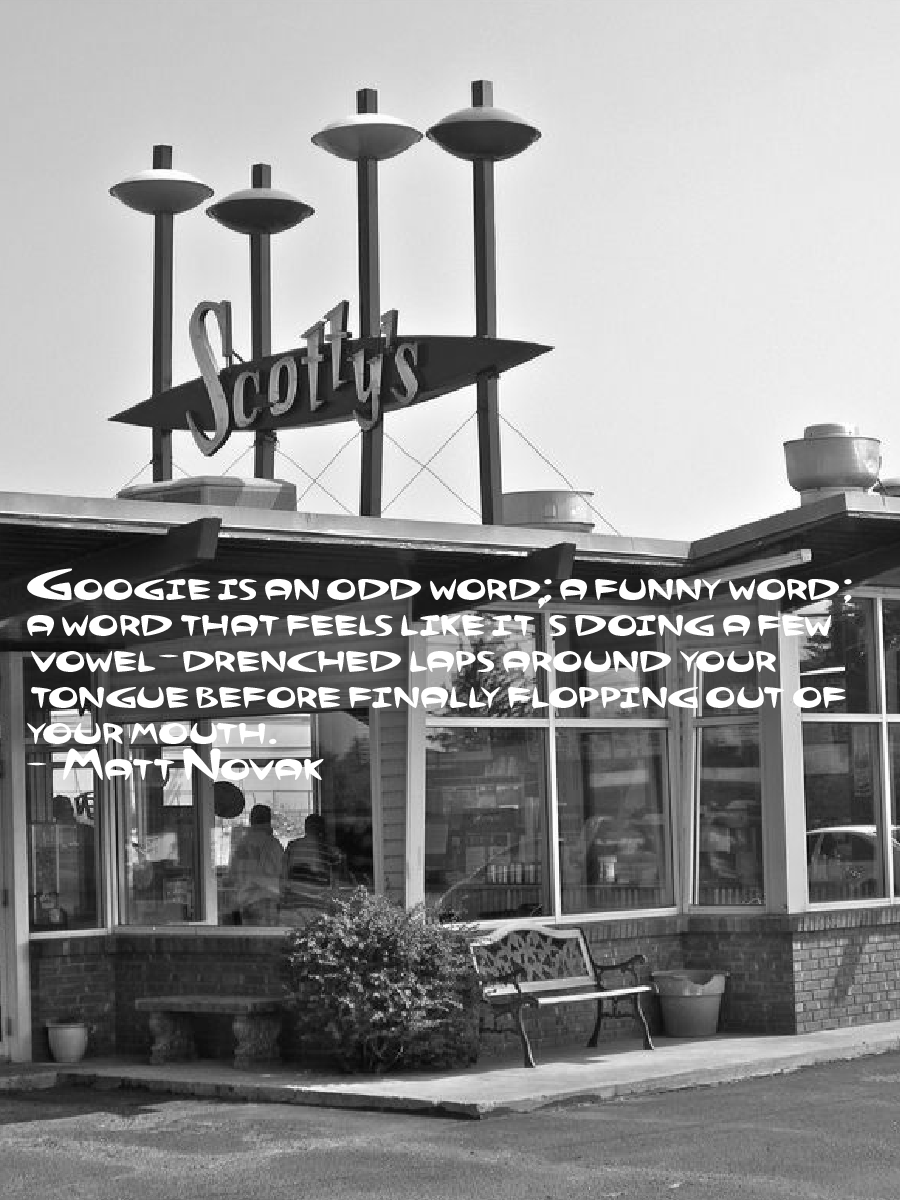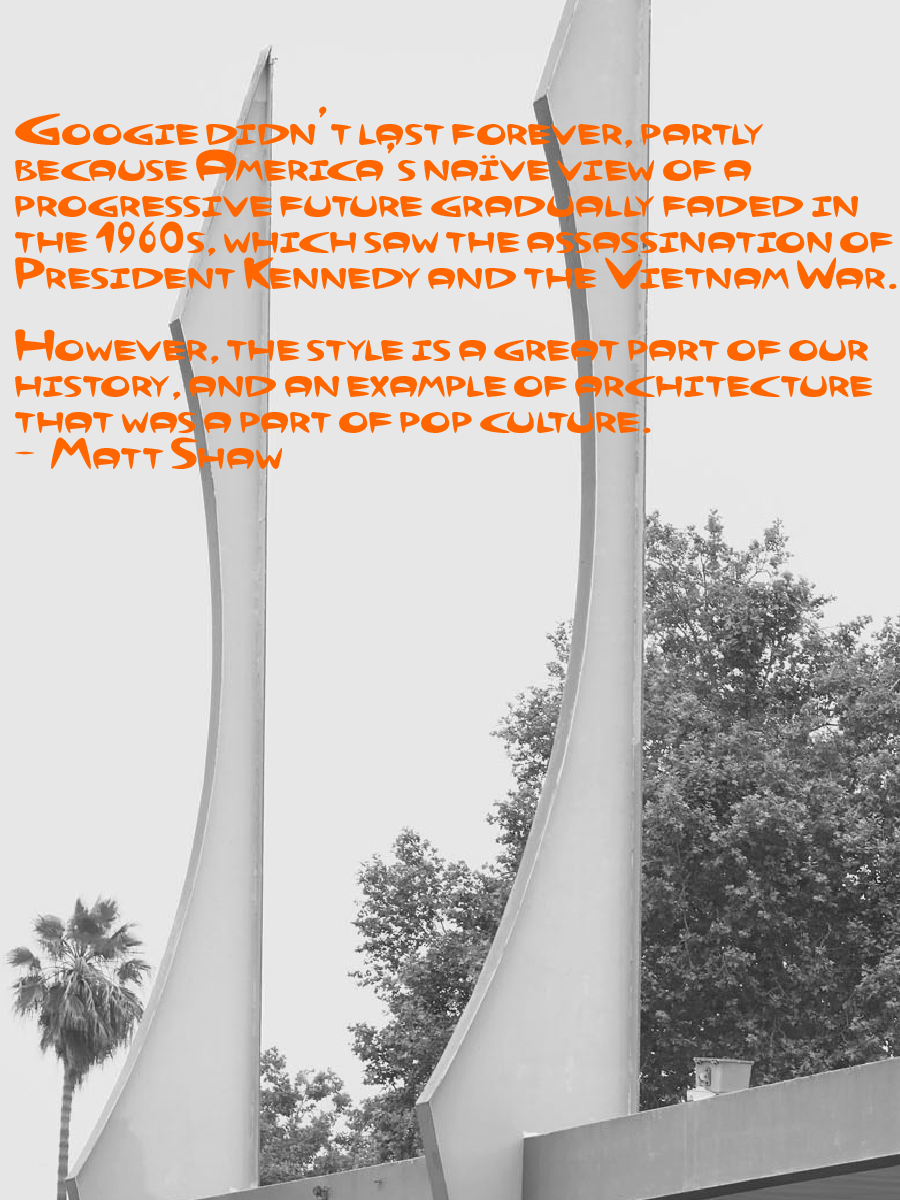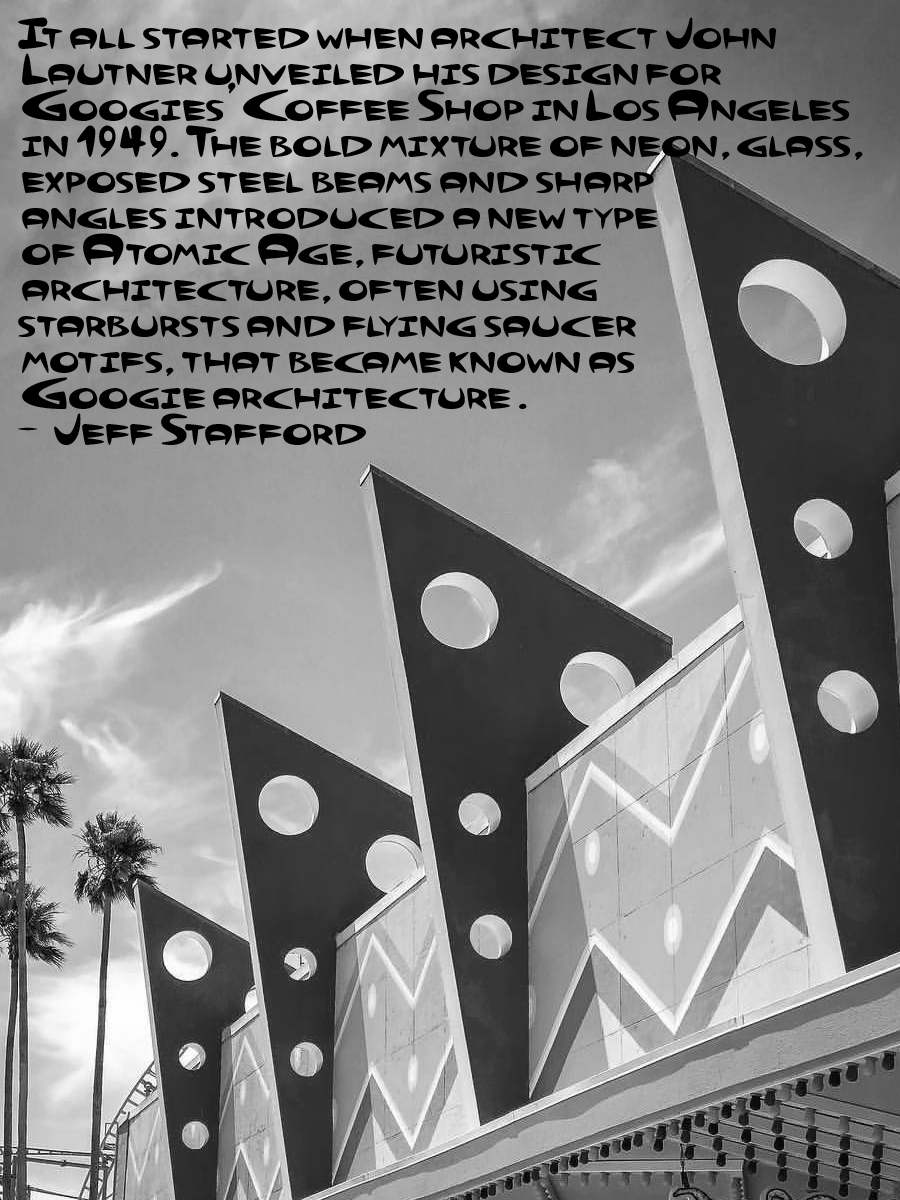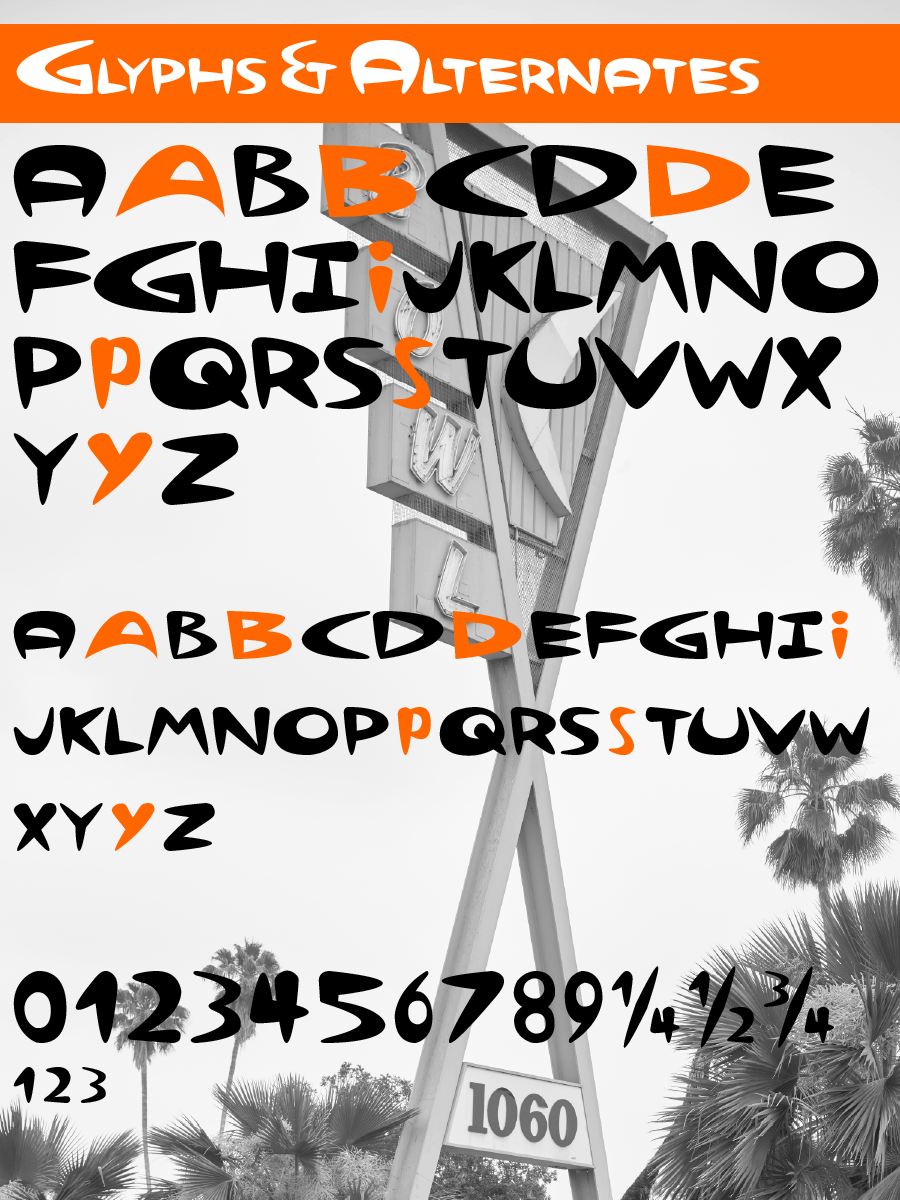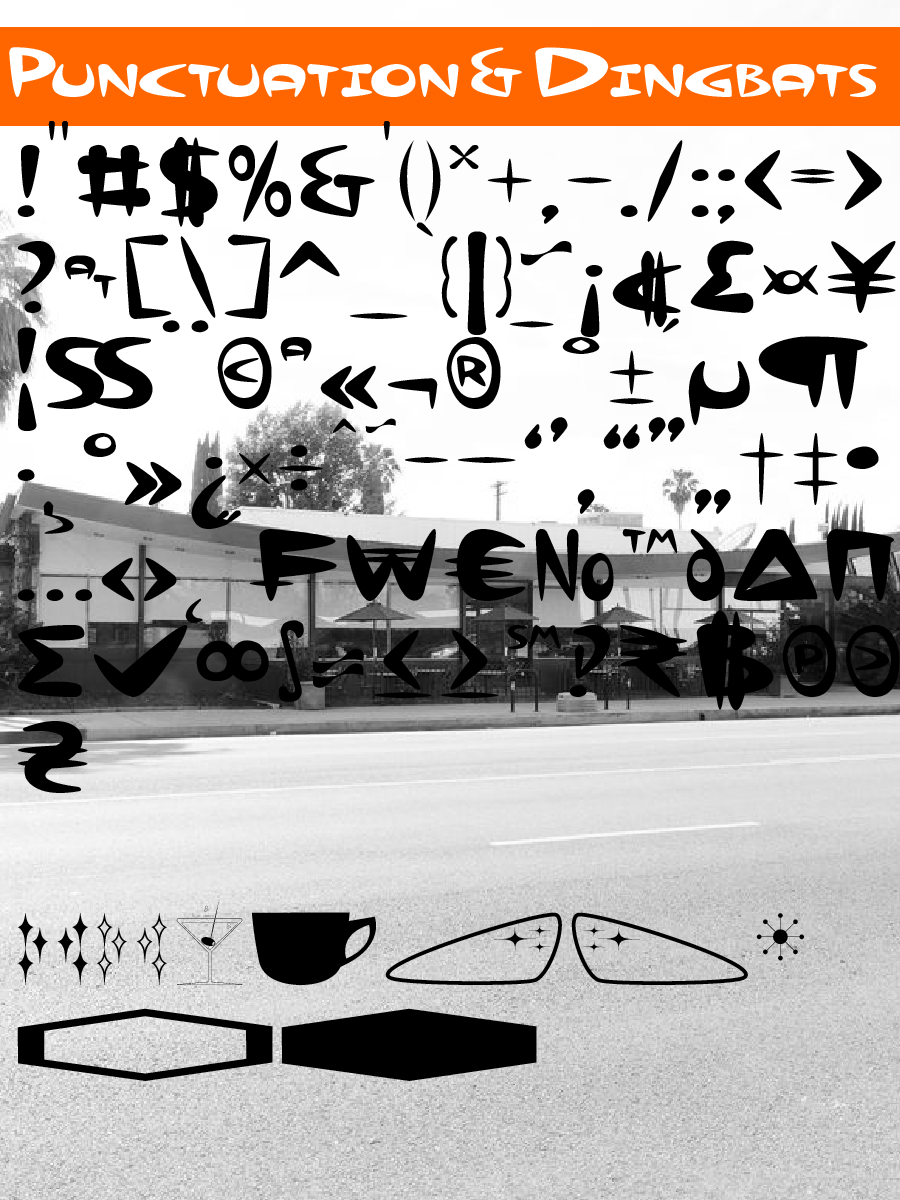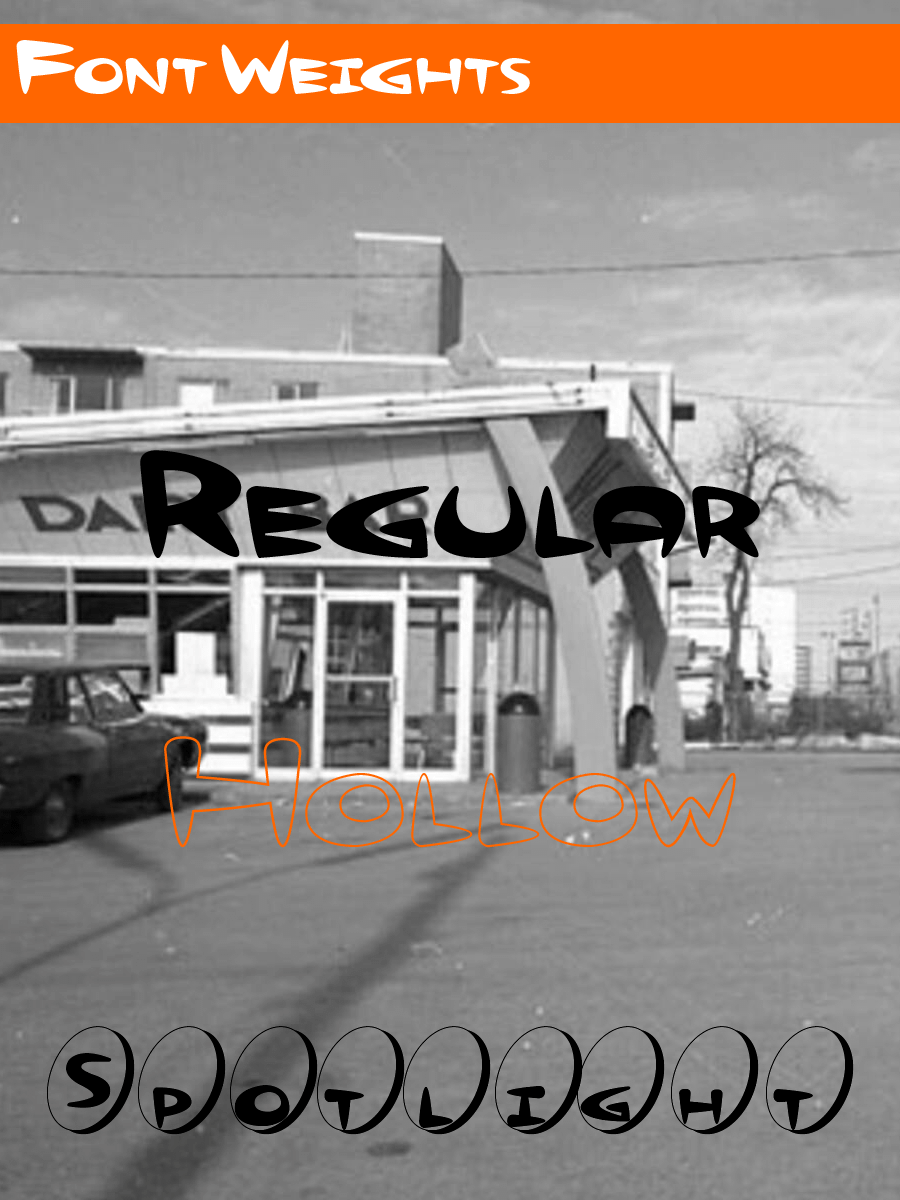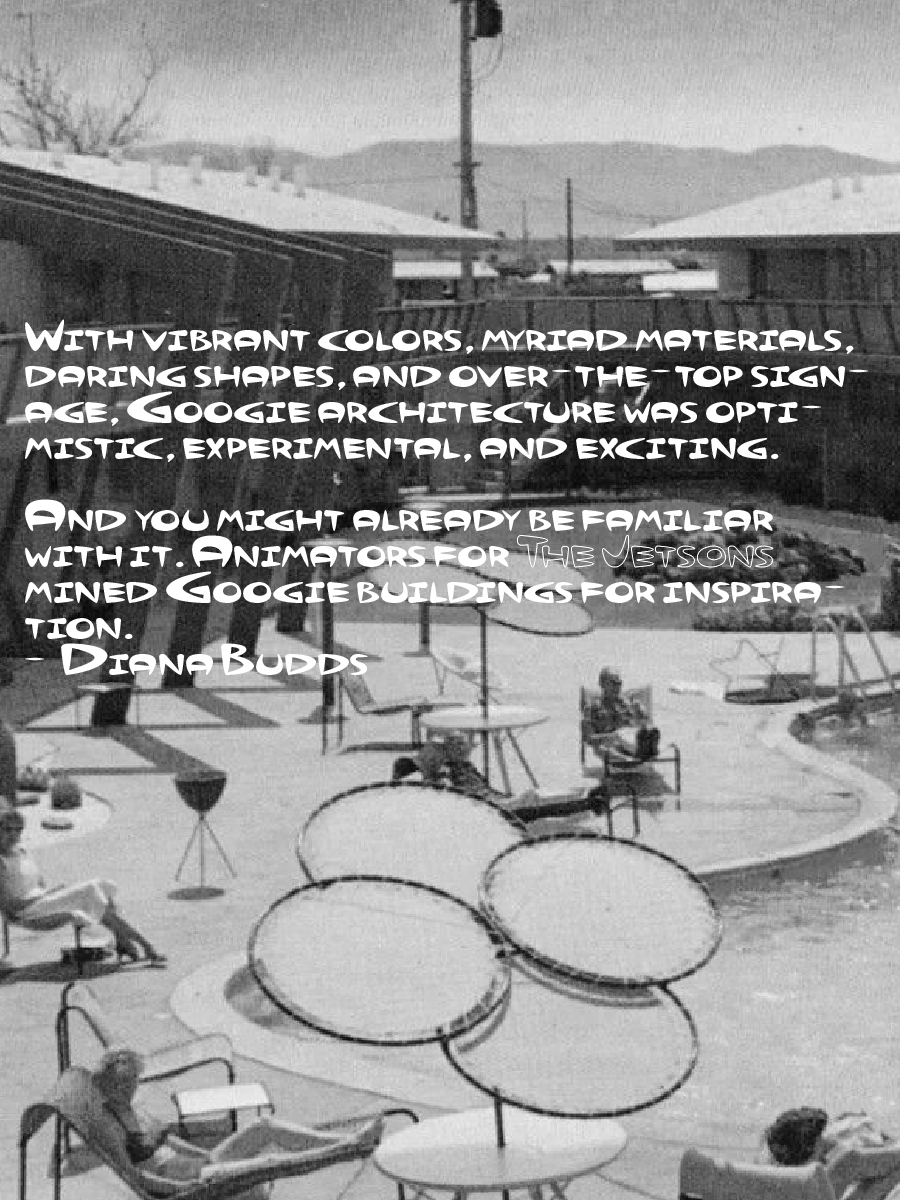
La Cienaga font - Spotlight weight
Being a SoCal kid, I grew up with Googie architecture. And probably like most Angelenos, we love our kitsch, even if the rest of the world has pretty much forgotten it. So, after coming across a series of "1950s" logo elements that looked anything but (uh, the Wurlitzer jukebox was from the late 30s/early 40s, Happy Days notwithstanding), I thought I'd slap on the rose-colored glasses and tap into nostalgia to get some real Googie out there.
Thus, La Cienaga (the so-called birthplace of Googie architecture) was born. I hope you'll enjoy it, whether it's for retro art or the signage on your spaceport!